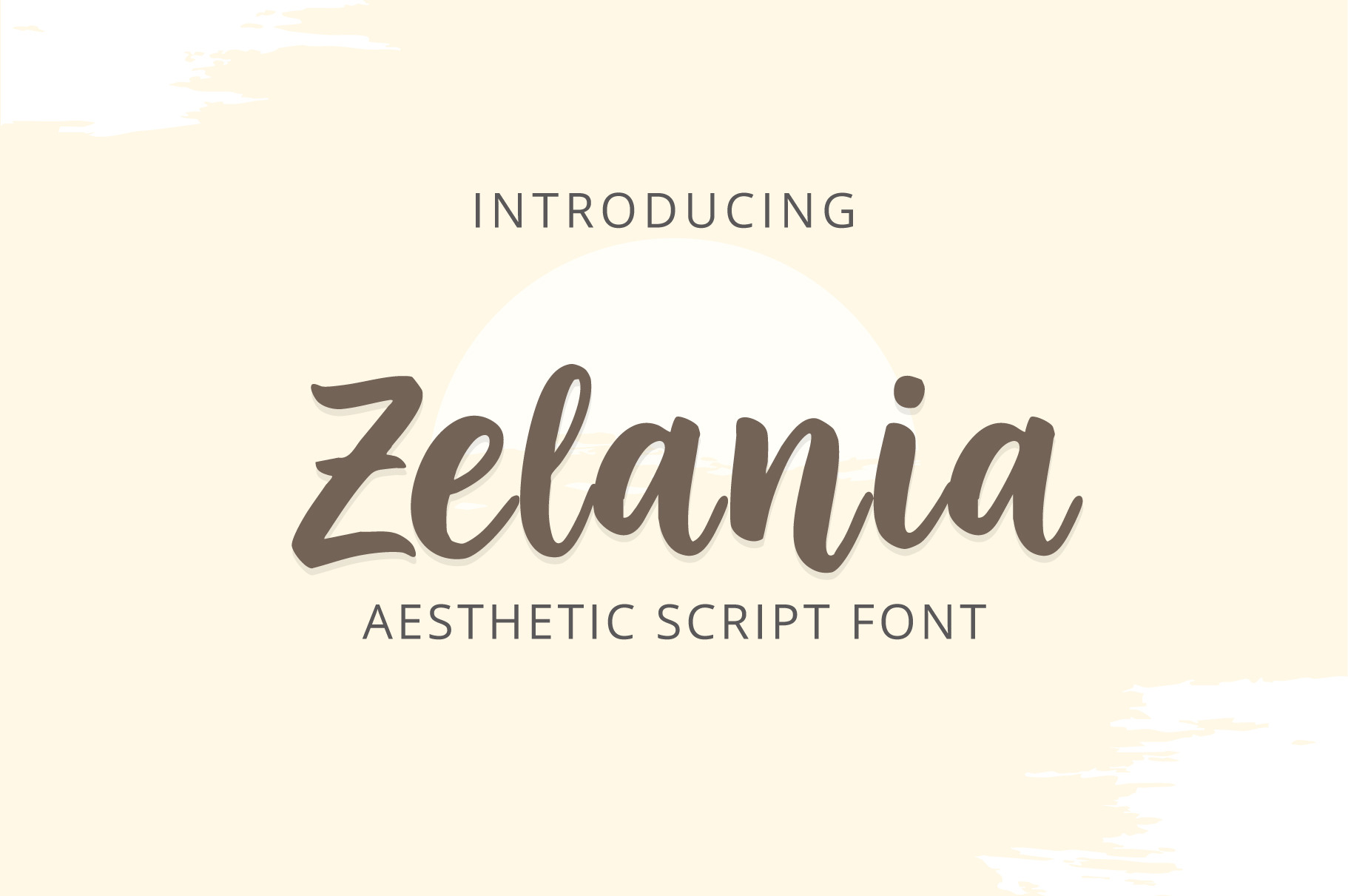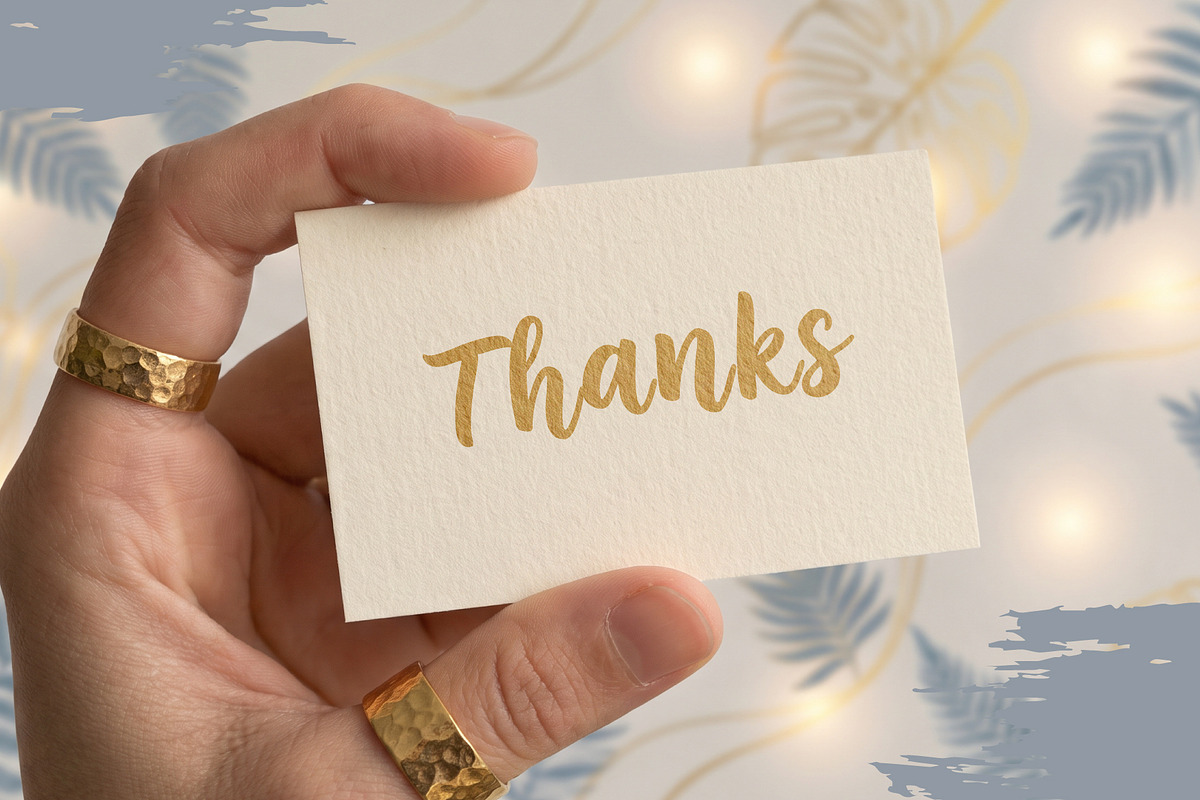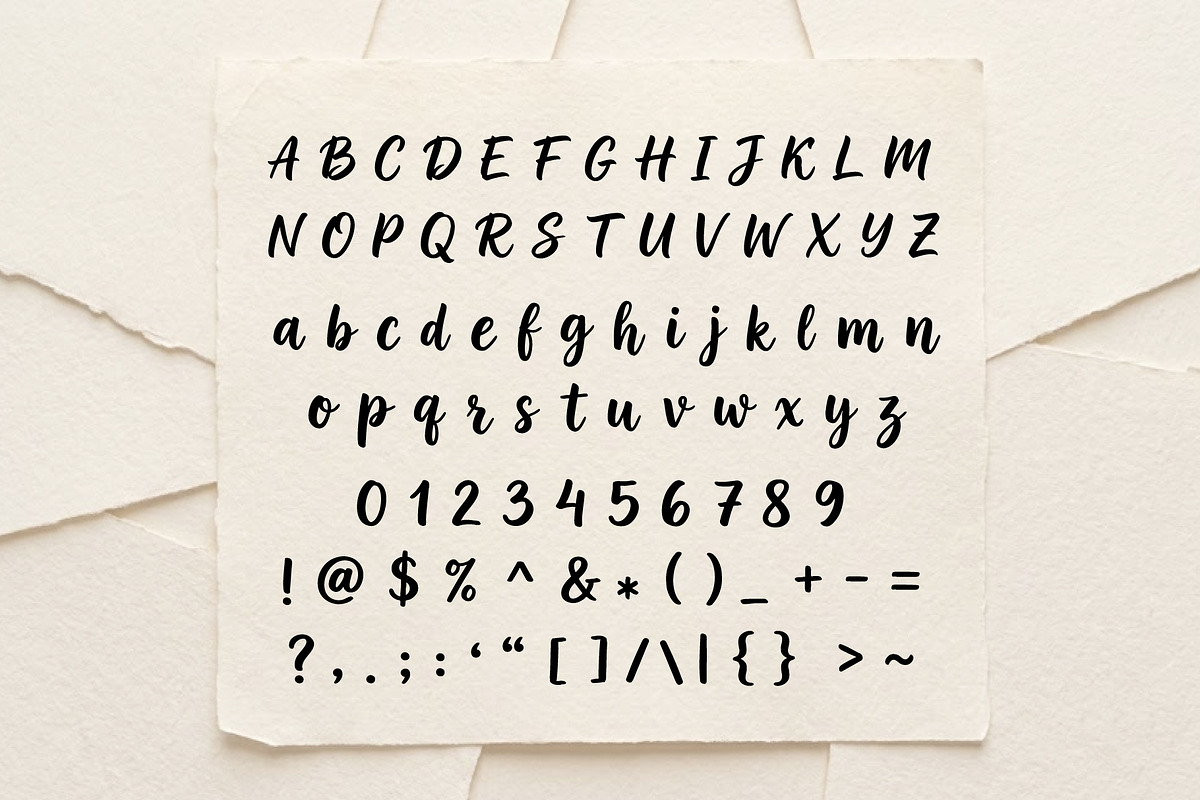
Zelania Aesthetic Script Font
Meet Zelania, a naturally flowing, aesthetic handwritten script font.
Designed with an authentic brush pen texture, Zelania captures the imperfect, organic beauty of real human handwriting. With its smooth curves and perfectly balanced stroke thickness, this font adds a personal, artistic touch to any design project.
Whether you are creating modern brand identities, rustic wedding invitations, or eye-catching social media quotes, Zelania provides a warm, bespoke feel that stands out. It is highly legible and cleanly digitized, making it perfect for both print and digital media, as well as crafting machines like Cricut and Silhouette.
Logo design & brand typography
Product packaging and labels
Wedding invitations and stationery
Social media graphics and quotes
Greeting cards and "Thank You" notes
T-shirt designs and merchandise
Blog headers and aesthetic web design
Full set of standard uppercase and lowercase letters (A-Z, a-z)
Numbers (0-9)
A comprehensive set of punctuation and symbols